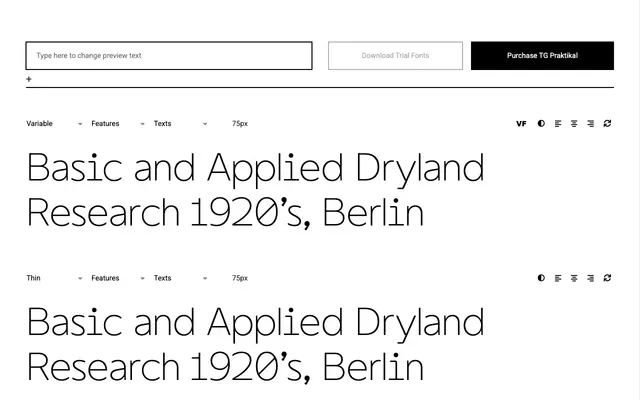
TG Praktikal
Tegamitype · Iqbal Firdaus · 2019
A geometric sans by Iqbal Firdaus drawing on Bell Centinel, Whitney and Metric, with monospace-influenced character forms across eight weights and a variable font.
Designed by Iqbal Firdaus at Tegamitype, TG Praktikal is a geometric sans that blends influences from Bell Centinel, Whitney and Metric with subtle monospace traits intended to give it a distinctive character at text sizes. The family ships in eight static weights from Thin to Black plus a variable font, covering approximately 90 languages across Latin Extended scripts. Three unspecified stylistic flavours offer tonal variation within the same family.
Described by the foundry as a modern geometric sans, inspired by geometric and gothic typefaces with a touch of monospace character design, placing it firmly in the geometric sans subcategory.